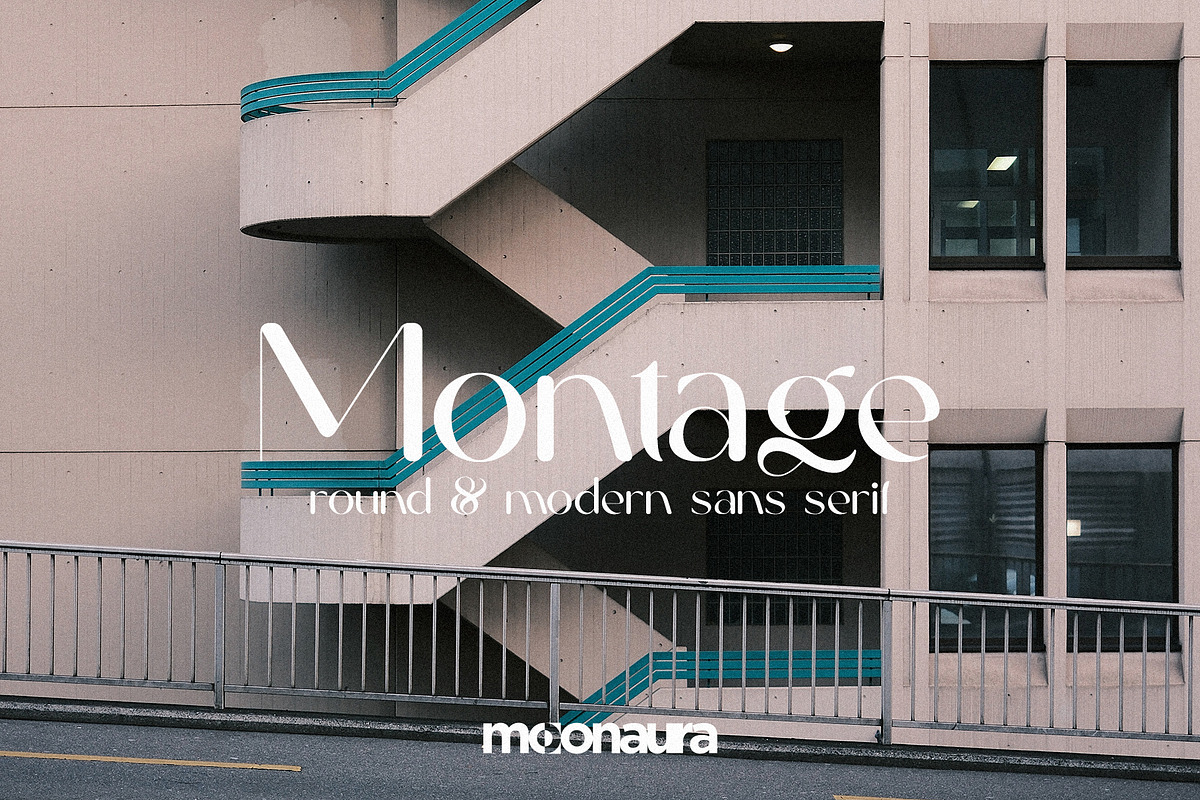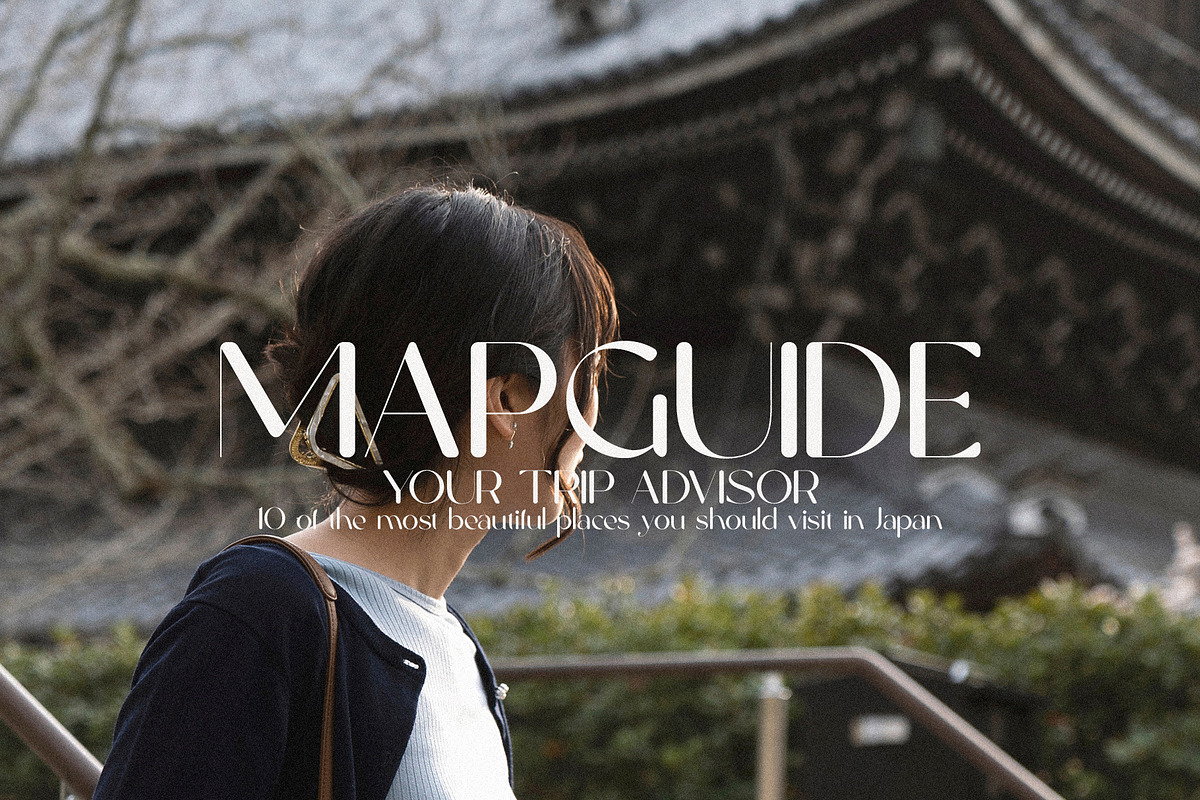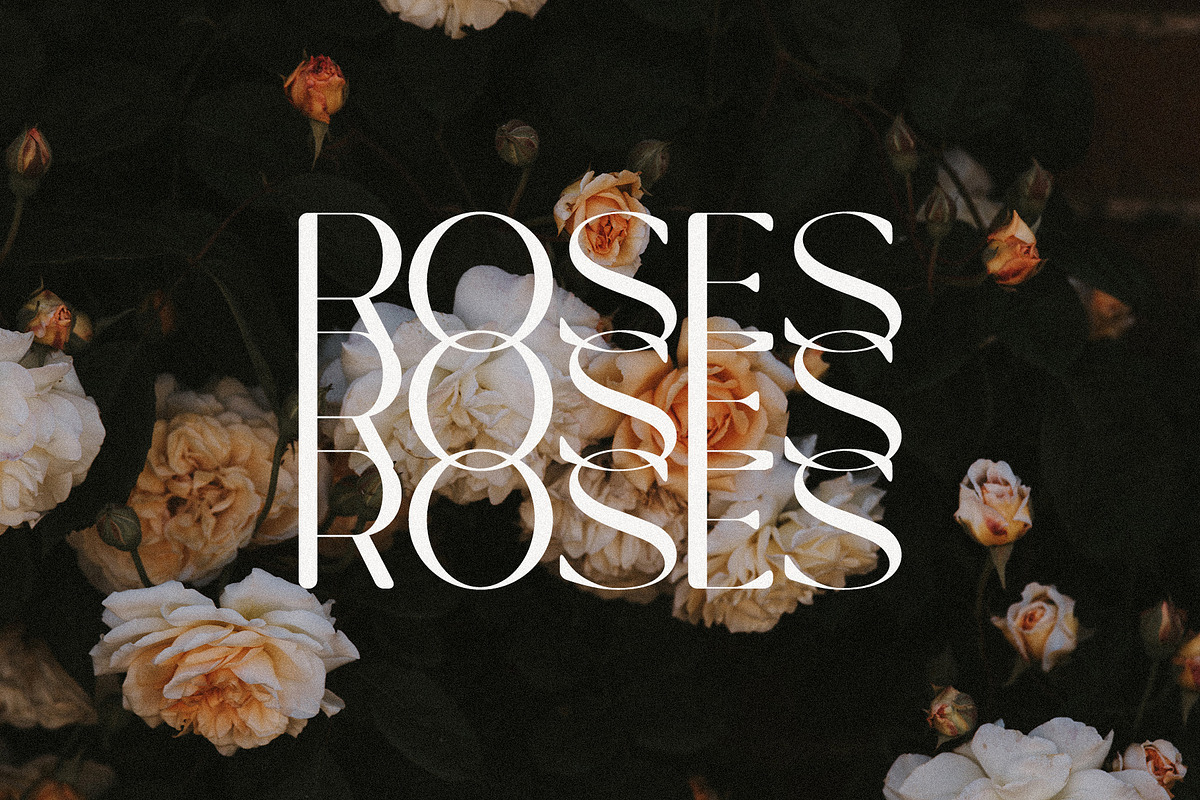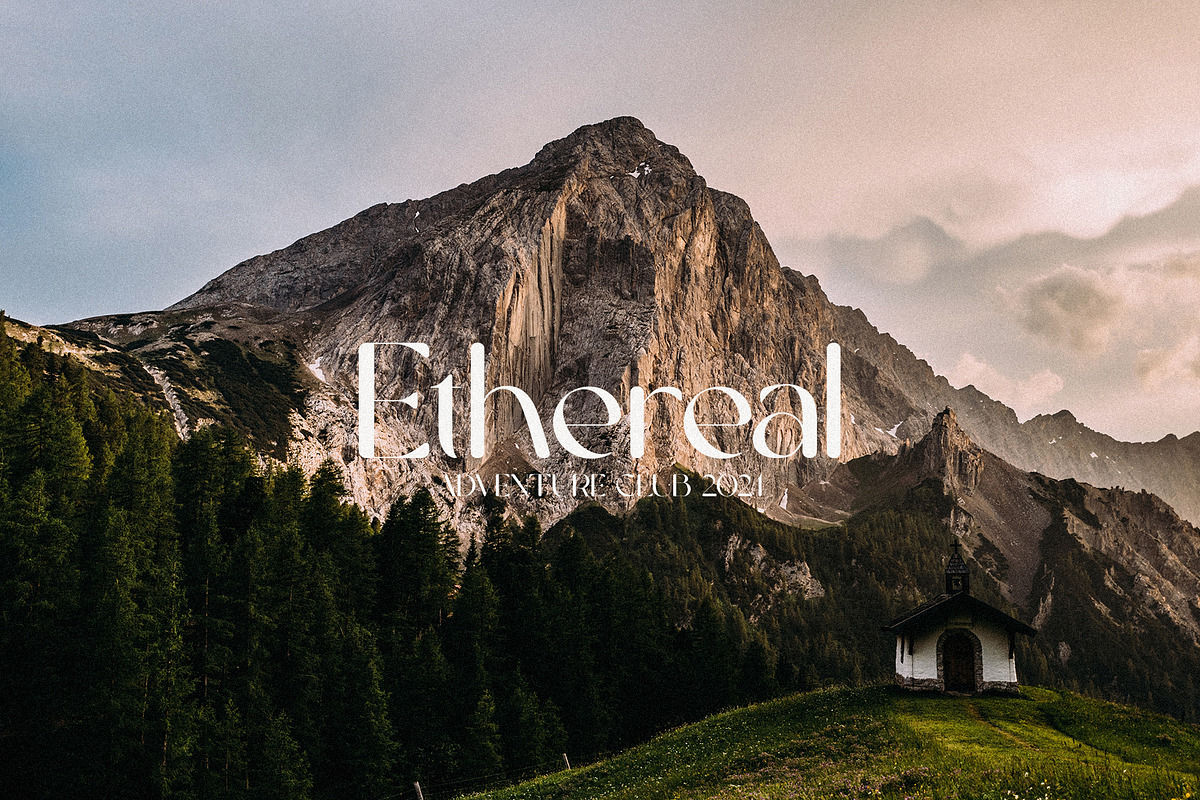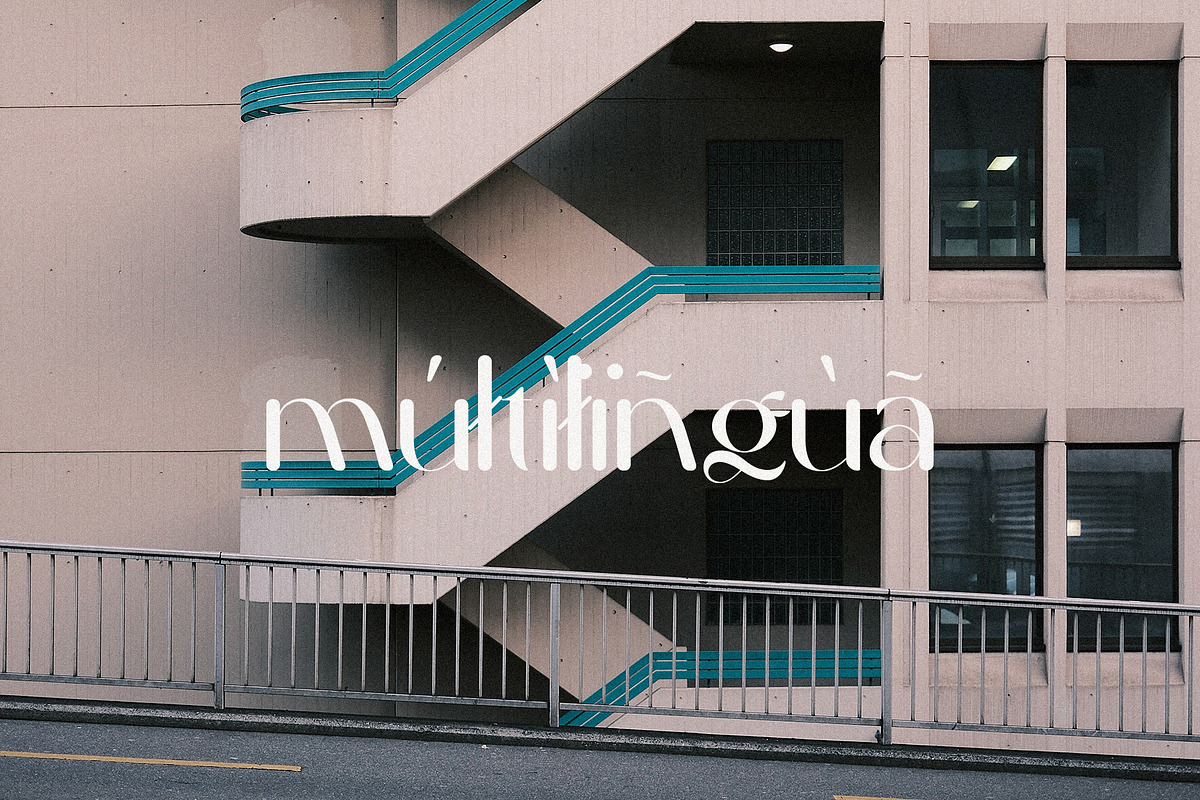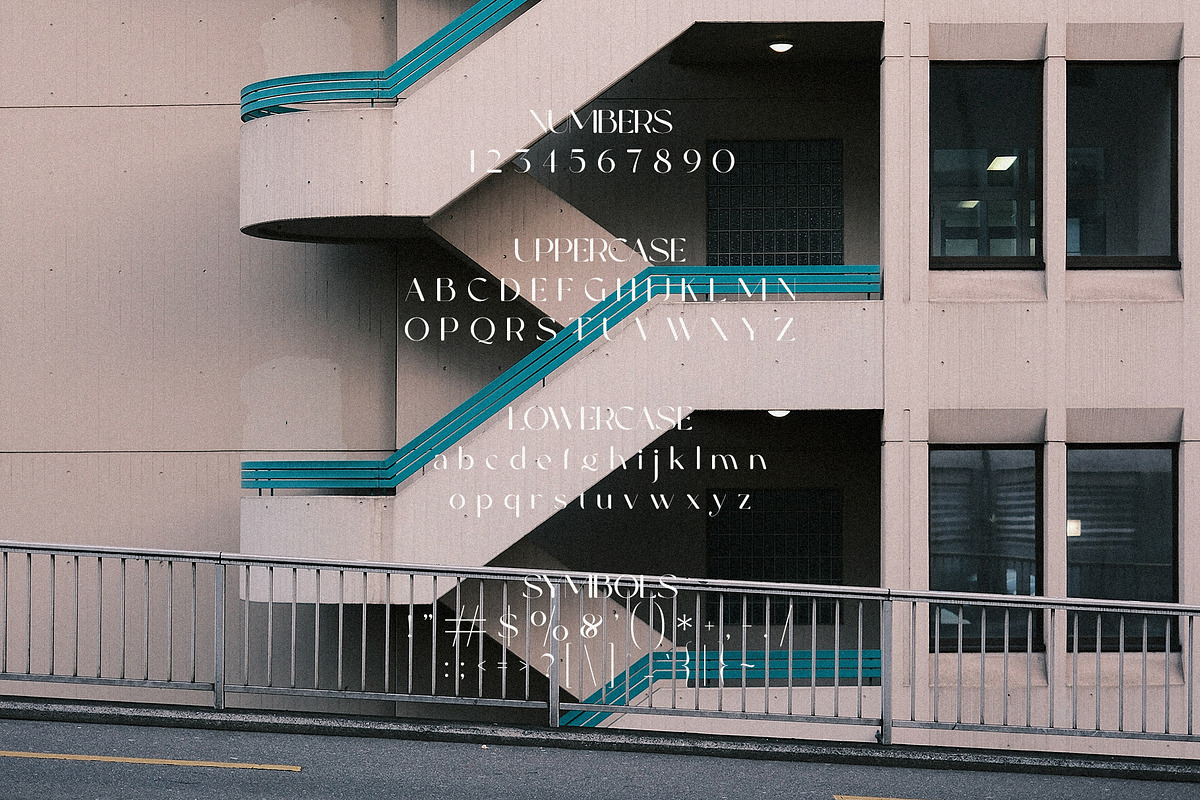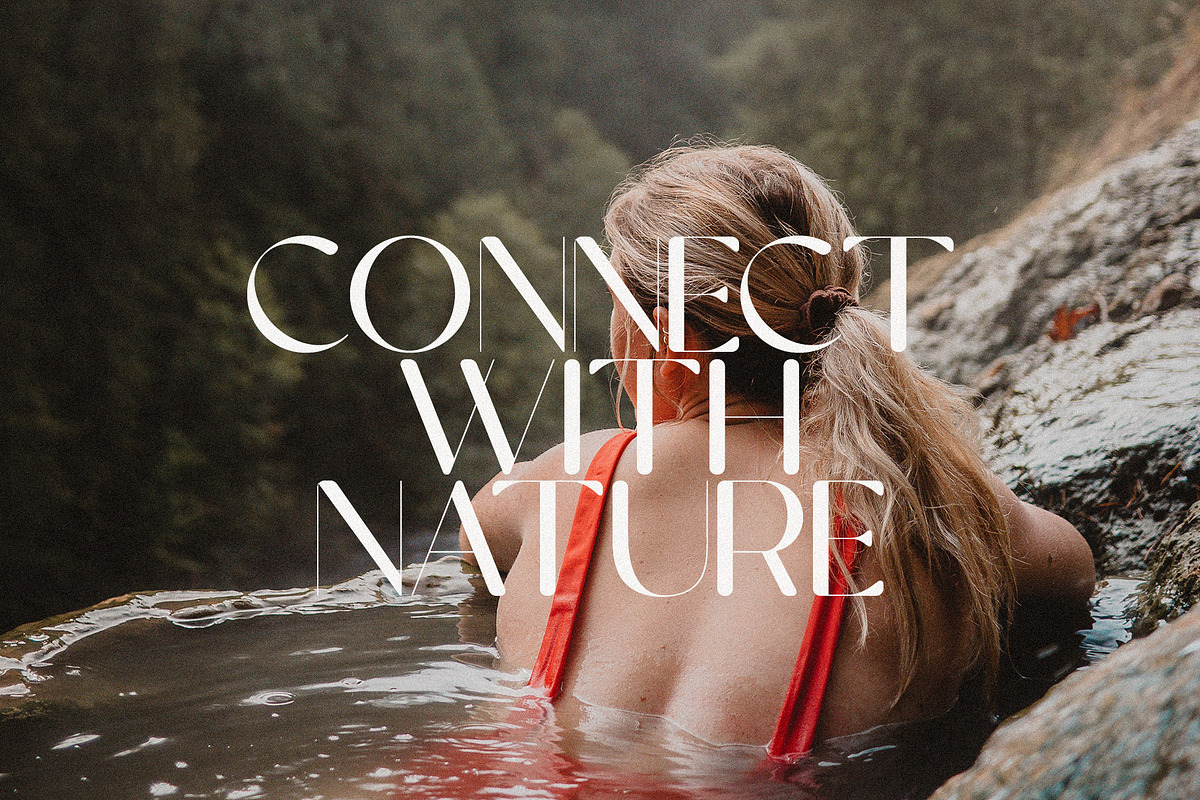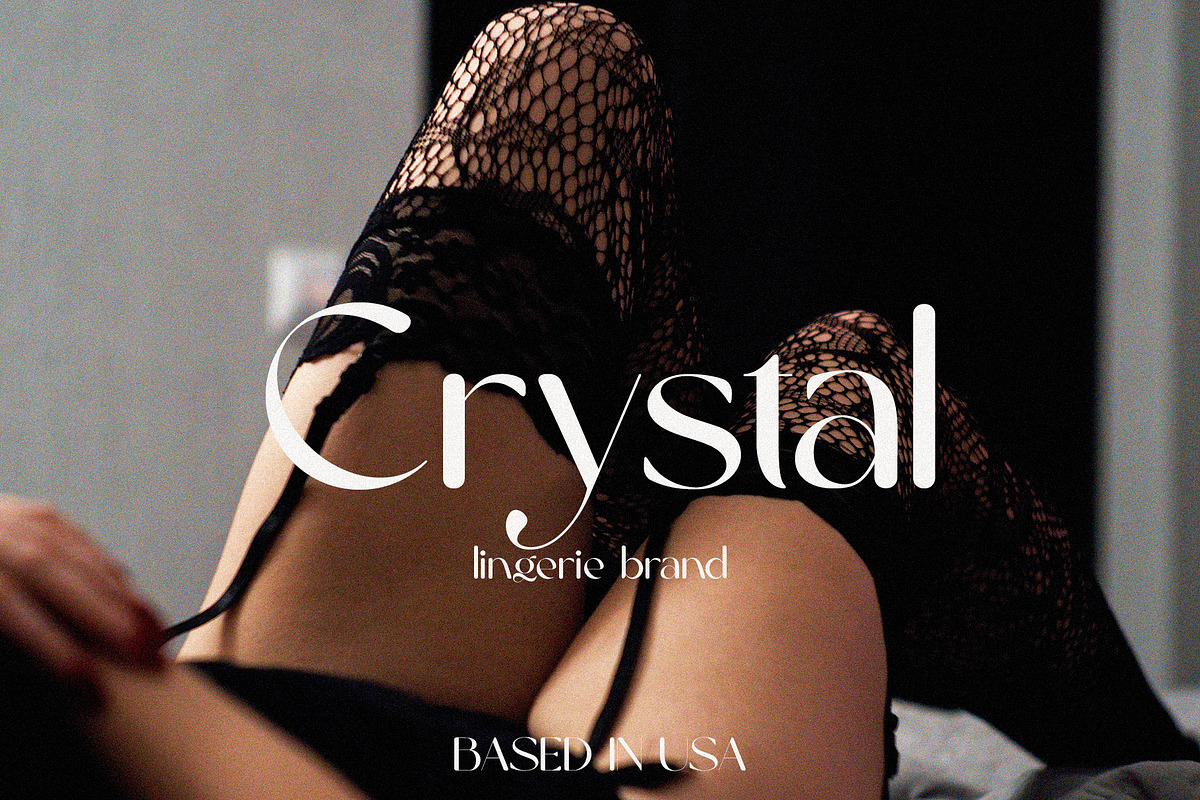
Montage - Round & Modern Sans Serif
Montage is a round, modern sans-serif typeface with soft, smooth curves. Its contemporary design offers a friendly and approachable feel, making it ideal for branding, websites, and creative projects.